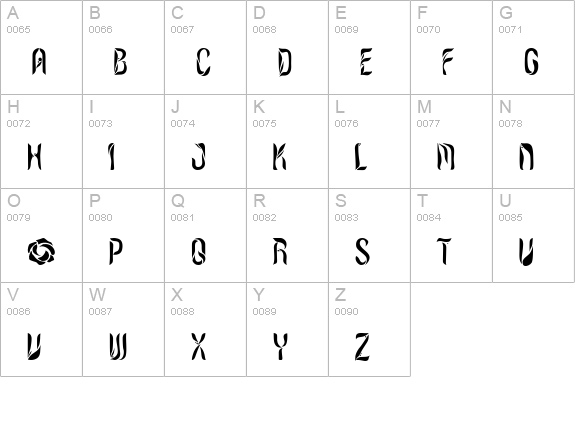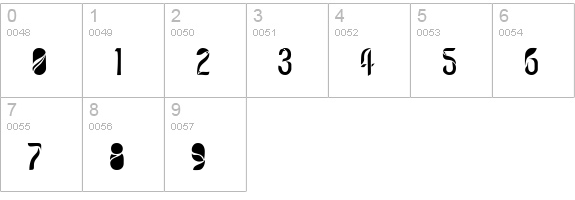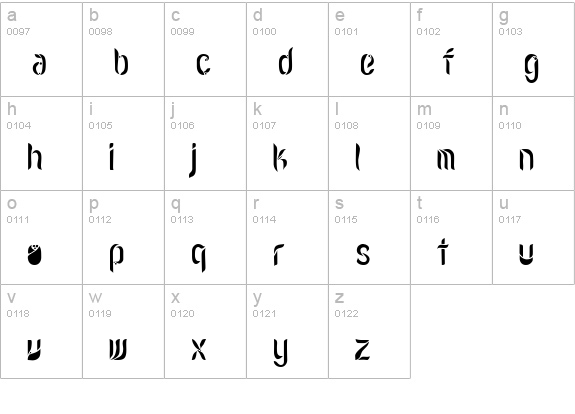
LVDC Romantic9 Font Details
LVDC Romantic9 font is a stunning display typeface that exudes elegance and charm. With its intricate details and romantic flair, this font is perfect for creating eye-catching titles, invitations, and branding materials. The delicate curves and flowing lines of LVDC Romantic9 add a touch of sophistication to any design project. What's even better is that LVDC Romantic9 font is completely free to download at FontsMarket.com. This means you can enhance your creative projects with this beautiful font without any cost. Whether you're working on a wedding invitation, a social media graphic, or a logo design, LVDC Romantic9 font will bring a touch of romance and style to your work. Don't miss out on the opportunity to elevate your designs with this exquisite typeface, available for free at FontsMarket.com.